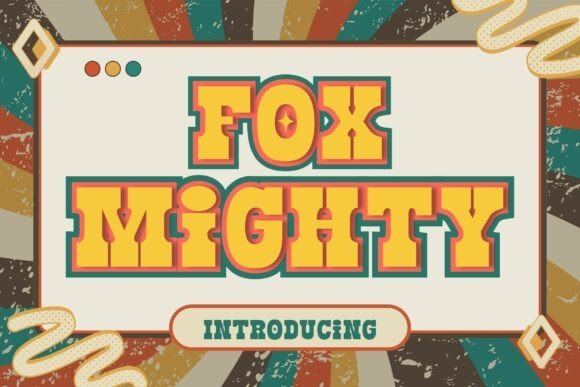
Unleash Your Inner Wild Child: Introducing Fox Mighty Font
Who among us hasn’t experienced that magical moment when a font just clicks? For designers, it’s like finding the perfect key to unlock a creative idea that’s been stuck in our minds. It’s the ‘aha’ moment when everything falls into place, and the design just starts to come alive. And that’s exactly what happens when you add the Fox Mighty Font to your design arsenal.
This bold and vibrant retro display font is inspired by classic Western posters and circus typography, making it the perfect choice for designers looking to add a touch of vintage charm and playful personality to their projects. With its chunky letterforms, strong outlines, and fun inner details, Fox Mighty Font is sure to make every word pop with character. Whether you’re designing a bold statement or a retro-inspired masterpiece, Fox Mighty Font is the perfect companion to bring your creative ideas to life.
- Unique Characteristics: Fox Mighty Font features a bold, playful, and energetic design, making it perfect for use in titles, headings, and other attention-grabbing applications.
Designer Review: Fox Mighty Font
As a designer, I was excited to dive into the Fox Mighty Font, but my experience was a mixed bag. Here’s my honest review.
- Unique design: The Fox Mighty Font has a distinct, quirky feel that can add personality to a design. The bold lines and playful curves can make it a great choice for titles or headings.
- Legibility: Despite its unconventional design, the font is surprisingly legible, especially at larger sizes.
- Emotional connection: The font’s whimsical nature can evoke feelings of nostalgia and playfulness, making it suitable for creative or children’s content.
- Overuse: The Fox Mighty Font can be overwhelming if used extensively throughout a design. Its bold nature can quickly become distracting.
- Lack of versatility: While the font is great for titles, it may not be the best choice for body text or large blocks of content.
- Platform limitations: The font may not render as intended on certain platforms or devices, which can affect its overall appearance.
Overall, the Fox Mighty Font is a fun, unique addition to a design, but its limitations should be carefully considered. With thoughtful use, it can add a playful touch to a project. However, it may not be the best choice for more formal or complex designs.
Getting the Most Out of Fox Mighty Font
For optimal results, use Fox Mighty Font for headings and titles to add a touch of sophistication to your designs. You can also use it for body text to create a unique and engaging visual identity.
Fox Mighty Font is perfect for:
– Business cards and stationery
– Marketing materials and advertising
– Digital designs and websites